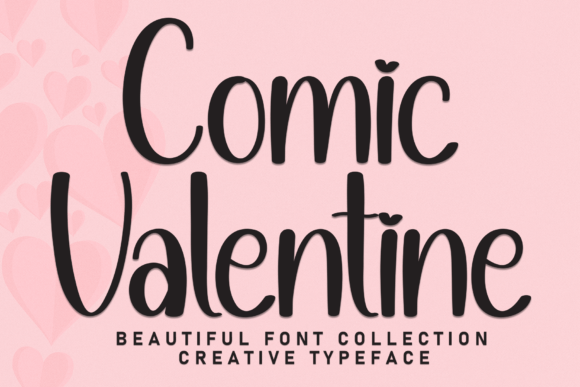
The Perfect Harmony of Creativity
Have you ever been stuck in a creative rut, struggling to find the perfect font to bring your vision to life? That’s where ‘Sweet Symphony’ comes in – a stunning, artisanal display font designed to spark groundbreaking creativity and add a touch of magic to your designs.
At its core, ‘Sweet Symphony’ is a modern interpretation of the classic Comic Valentine Font, reimagined to infuse your designs with a lively energy and vibrant warmth. Whether you’re crafting enchanting wedding invitations or heartwarming greeting cards, this font is the perfect choice for designers looking to elevate their creative results with an intimate, personal touch.
Comic Valentine Font Key Features
- Font Family: Comic Valentine
- Font Style: Script, Handwritten
- Unique Characteristics: Hand-drawn, cursive style with a playful, whimsical feel; ideal for creating a romantic or vintage atmosphere in designs
Comic Valentine Font Review
First off, let me say that Comic Valentine Font has a certain charm to it. ✨ The playful, handwritten feel is perfect for anything from children’s books to social media graphics. The font is quite versatile, and the multiple styles within the font family allow for a lot of creative possibilities.
The font’s key features include:
- High-quality, clear lines
- Wide range of styles and weights
- Easy to read, even at small font sizes
- Perfect for adding a personal touch to designs
However, there are a few limitations to consider. ⚠️ The font’s overall design may not be suitable for formal or professional projects, as it can come across as a bit too playful or informal. Additionally, some of the styles may be a bit too ornate or busy for certain designs.
Overall, I’d give Comic Valentine Font a solid 3.5 out of 5 stars. While it’s not the most comprehensive or professional font family out there, it’s a great choice for designers looking to add a bit of whimsy and personality to their projects.
Comic Valentine Font is perfect for creating playful, whimsical designs. Use it for:
- Valentine’s Day cards and invitations
- Children’s birthday parties and decorations
- Food and beverage branding (e.g. candy, desserts)
Remember to experiment with different font sizes, colors, and styles to get the most out of the Comic Valentine Font.
Creative Projects Using Comic Valentine Font
Project 1: Whimsical Valentine’s Day Cards
Create unique and playful Valentine’s Day cards for friends and family using the Comic Valentine Font. This font adds a touch of humor and romance to any card design.